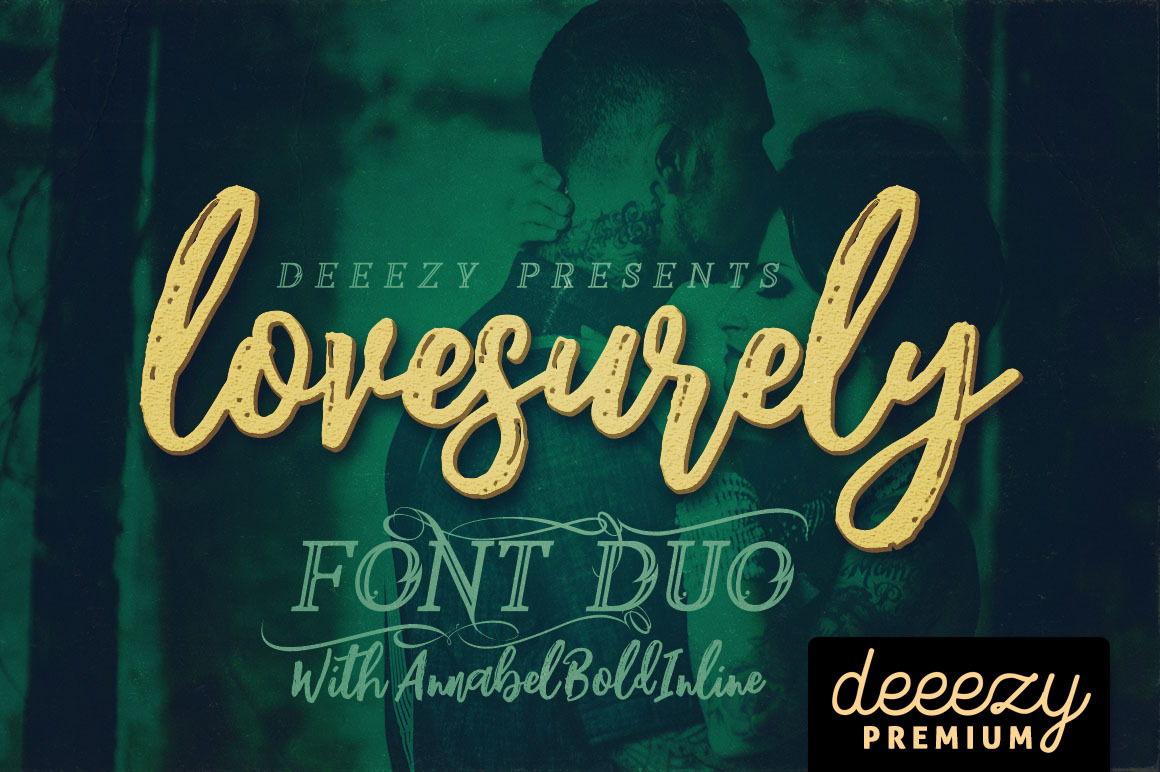
Lovesurely Font Duo
Cool retro or vintage style font duo for your new projects. First font is grunge & bold style script font with multi language support and lot of stylistic alternates. Second font is cool display font with 2 swirls versions and regular & grunge version (without multi language support).